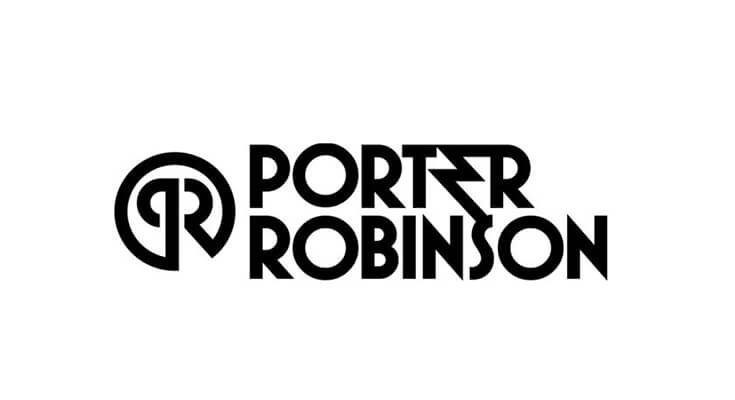
Introducing Porter Robinson Font! Porter Robinson is an American DJ, record producer, musician, and singer from Chapel Hill, North Carolina.
Robinson’s first full-length studio album, Worlds, was released in 2014. Porter Robinson’s debut extended play, was released on September 13, 2011, as the debut release on Skrillex’s record label OWSLA.
Here we provide the closest font for the “SPITFIRE” lettering Phoenixians. This techno font was created and shared by Pixel Sagas.
As for the Porter Robinson logo in the cover art, it appears to be a design based on Mostra Nova Bold that was made by Mark Simonson.
This display typeface is suitable for various purposes. For example, banner crafting, title displaying, logo making, branding, brochure layout, posters design, hoardings, and many other similar methods.